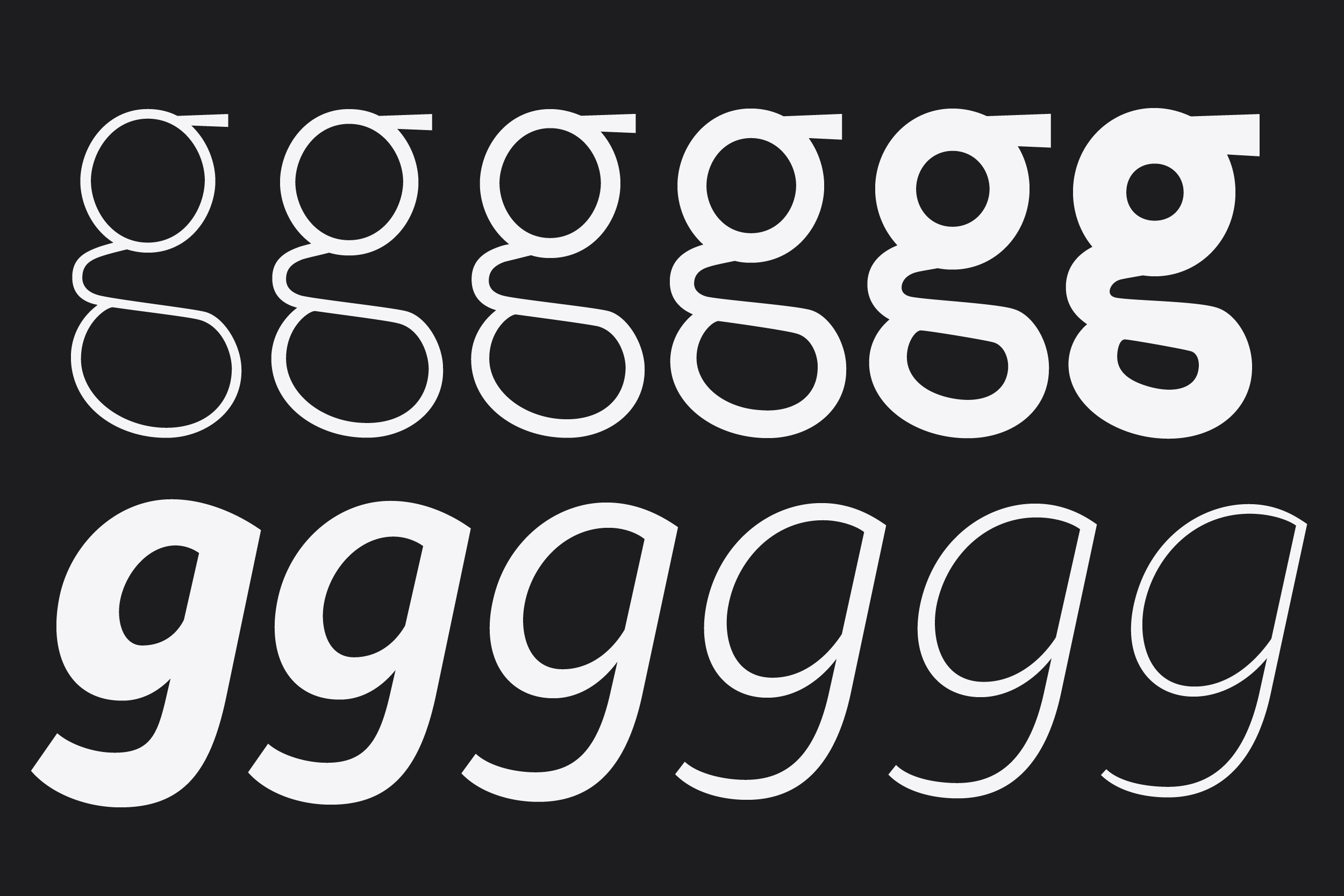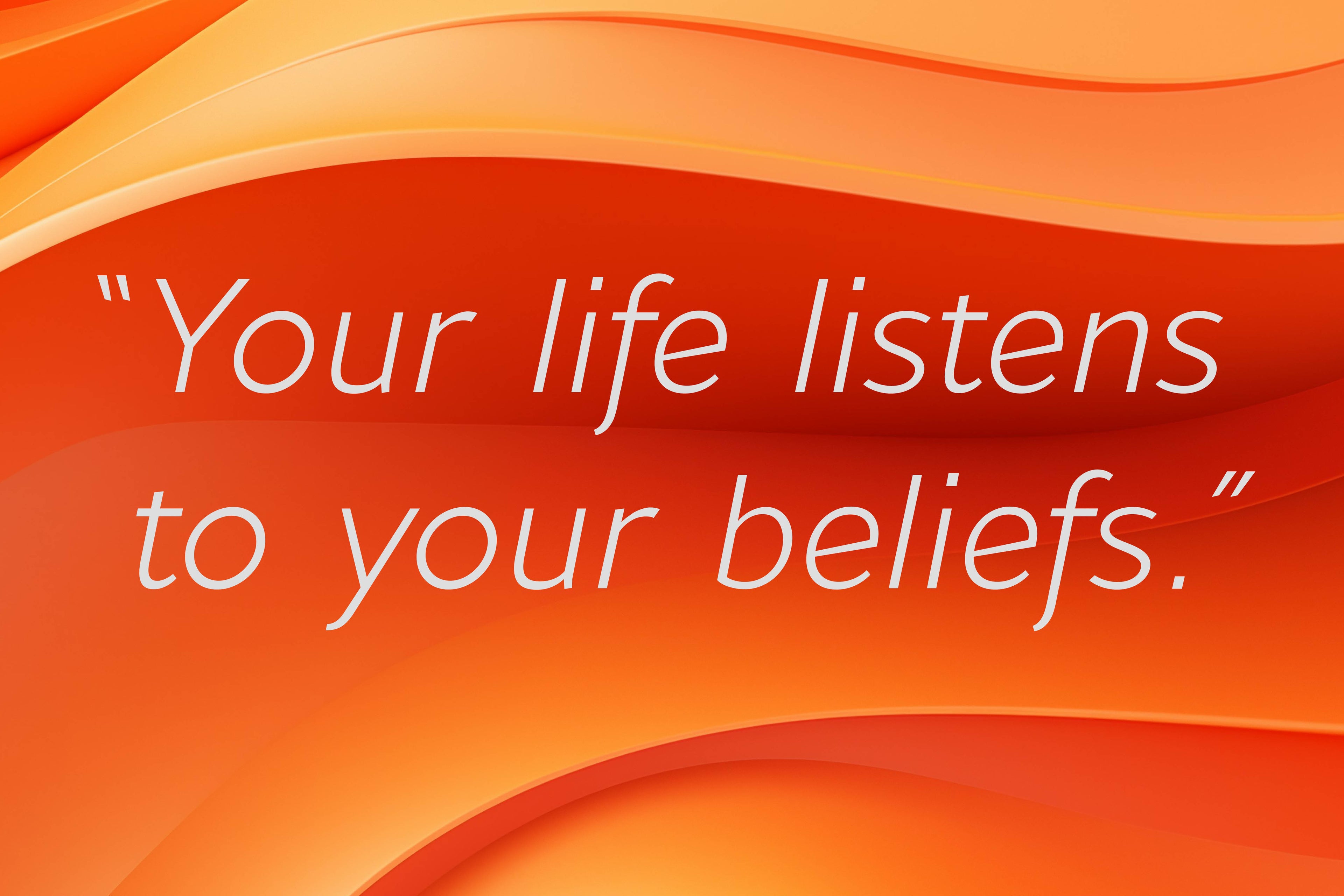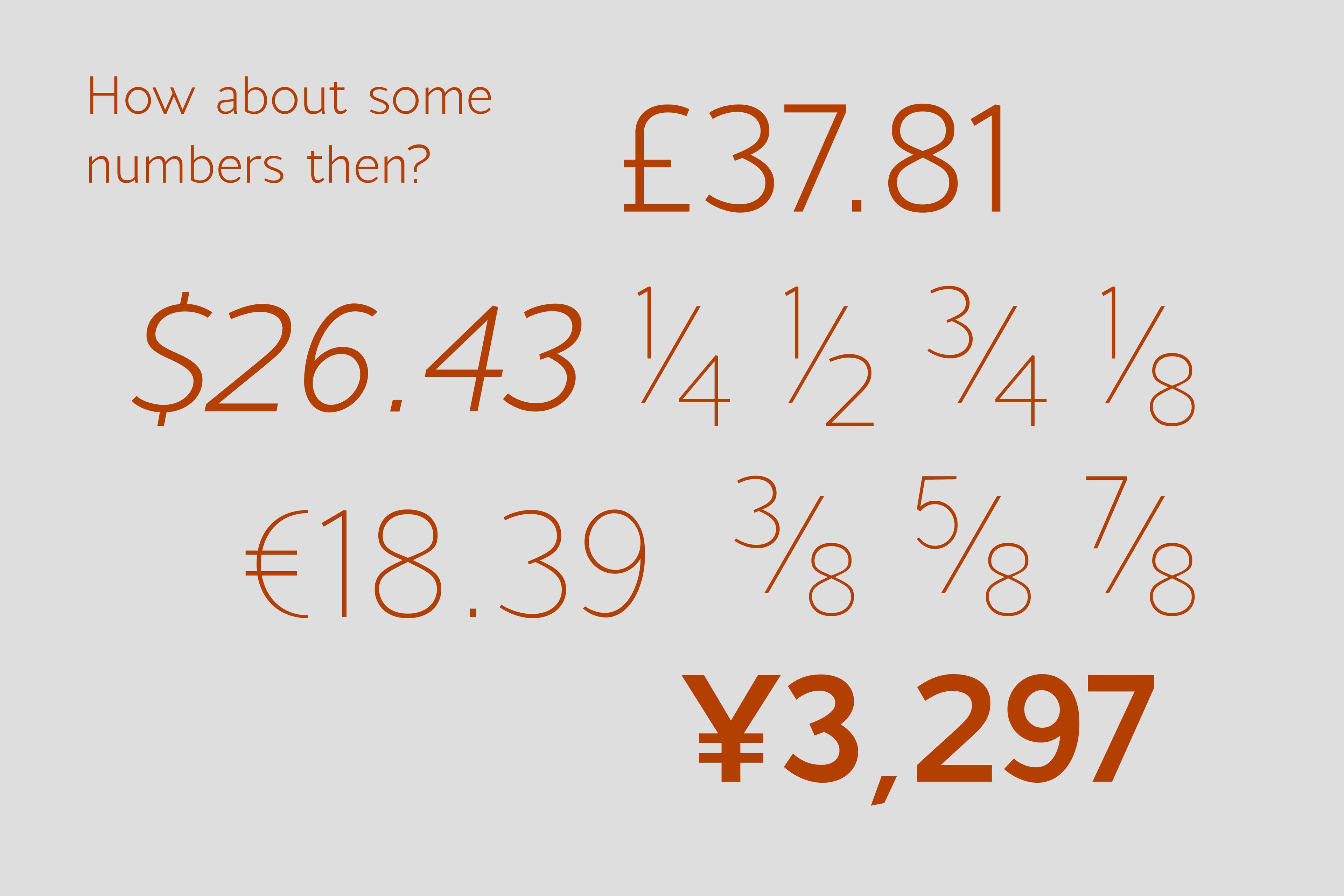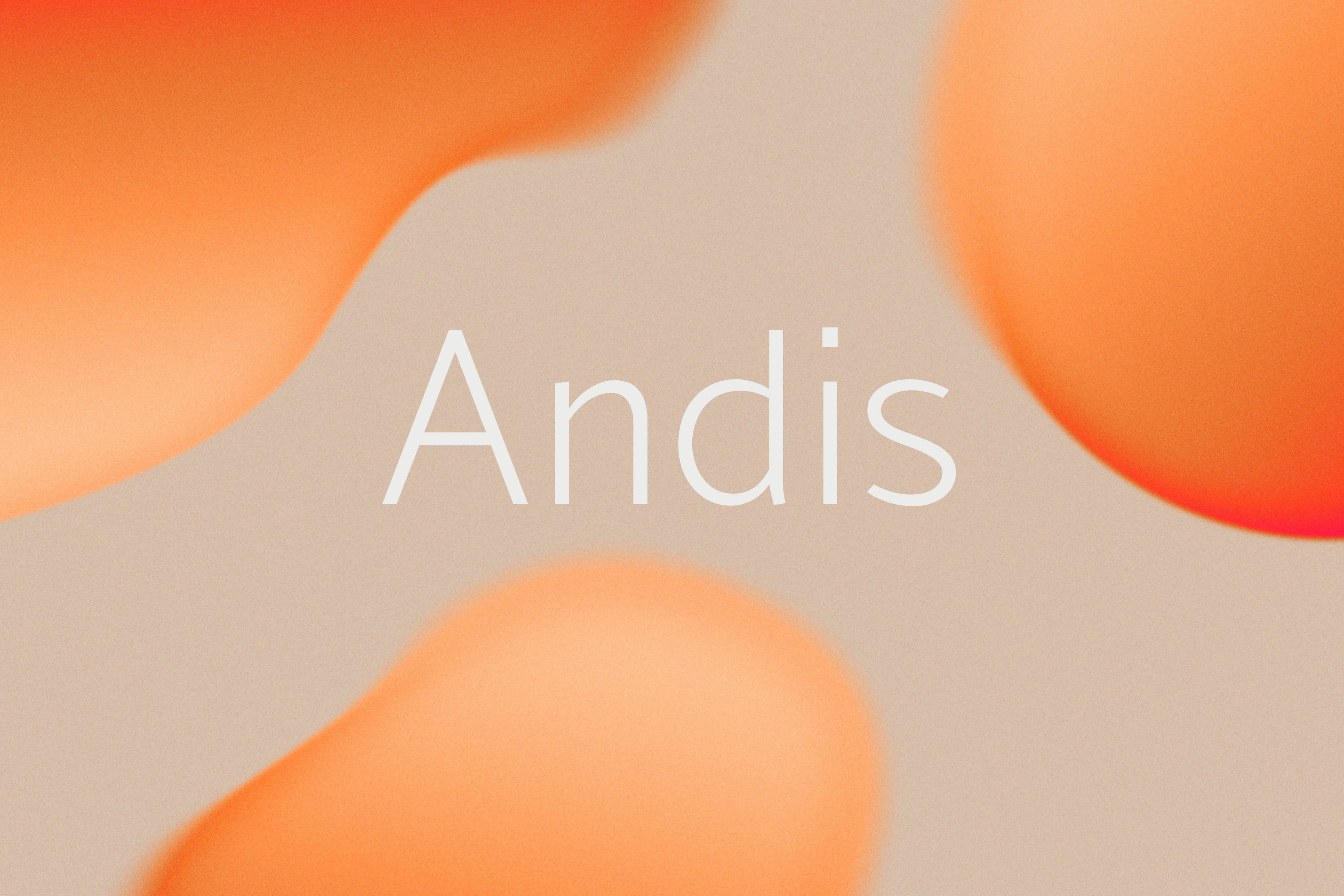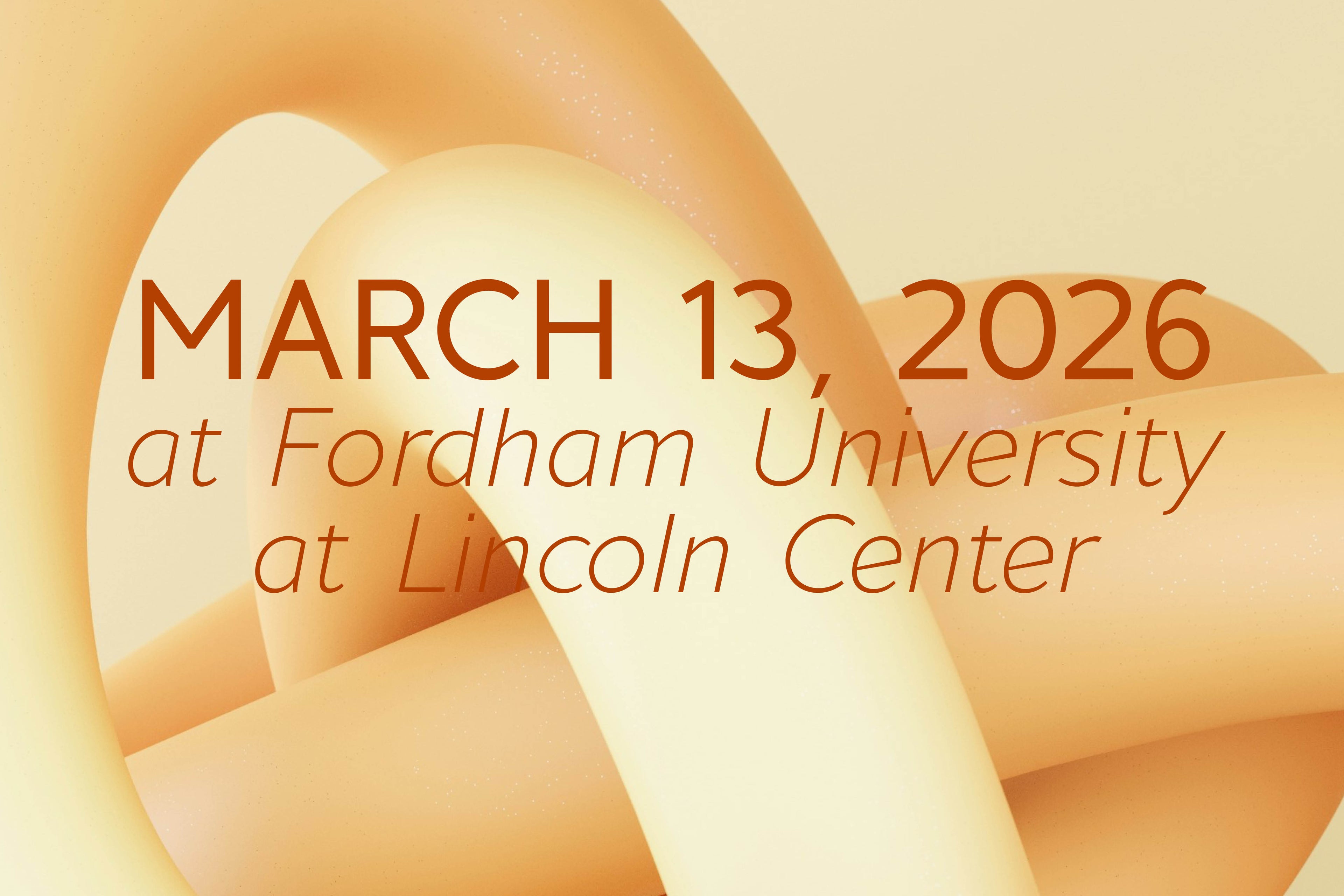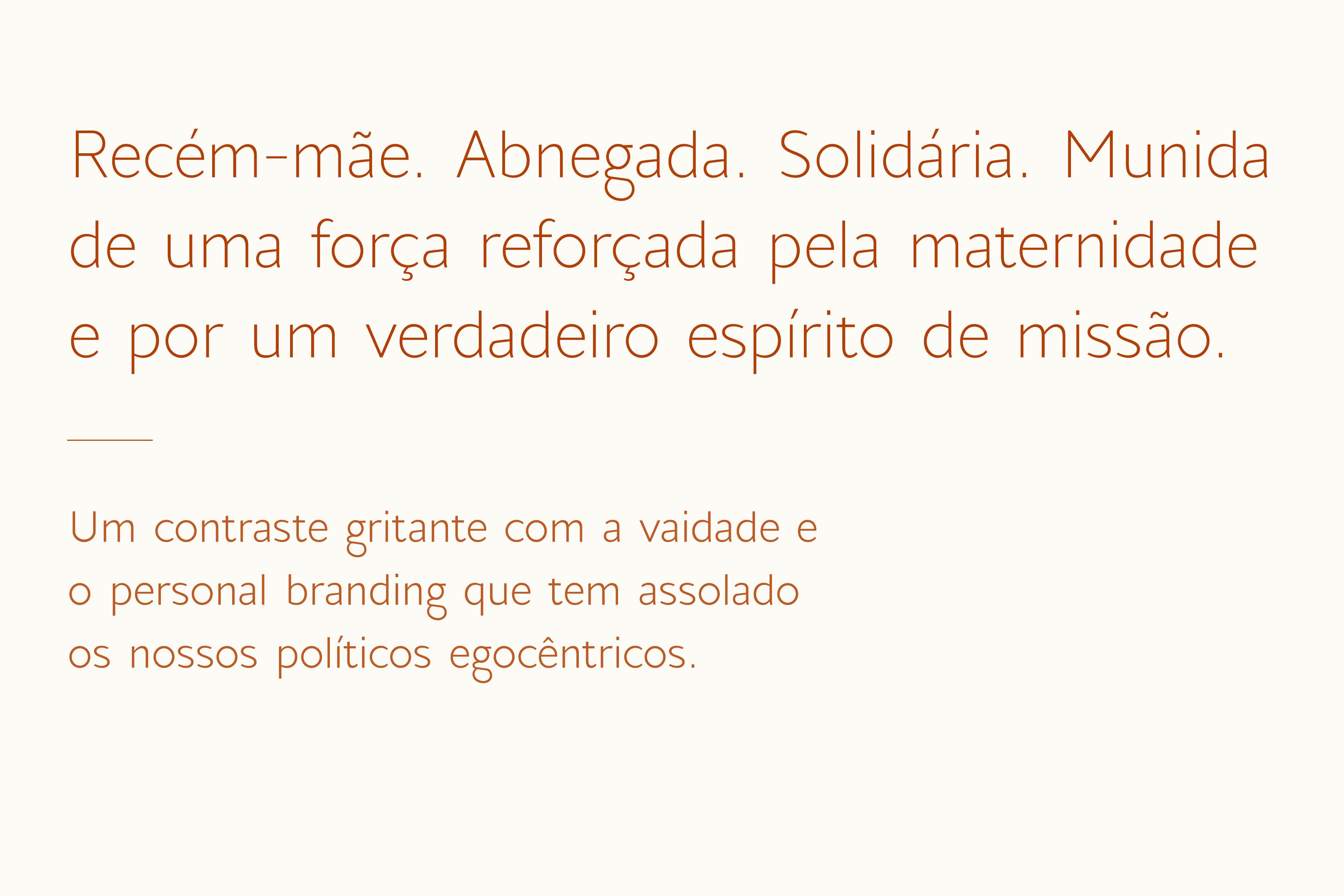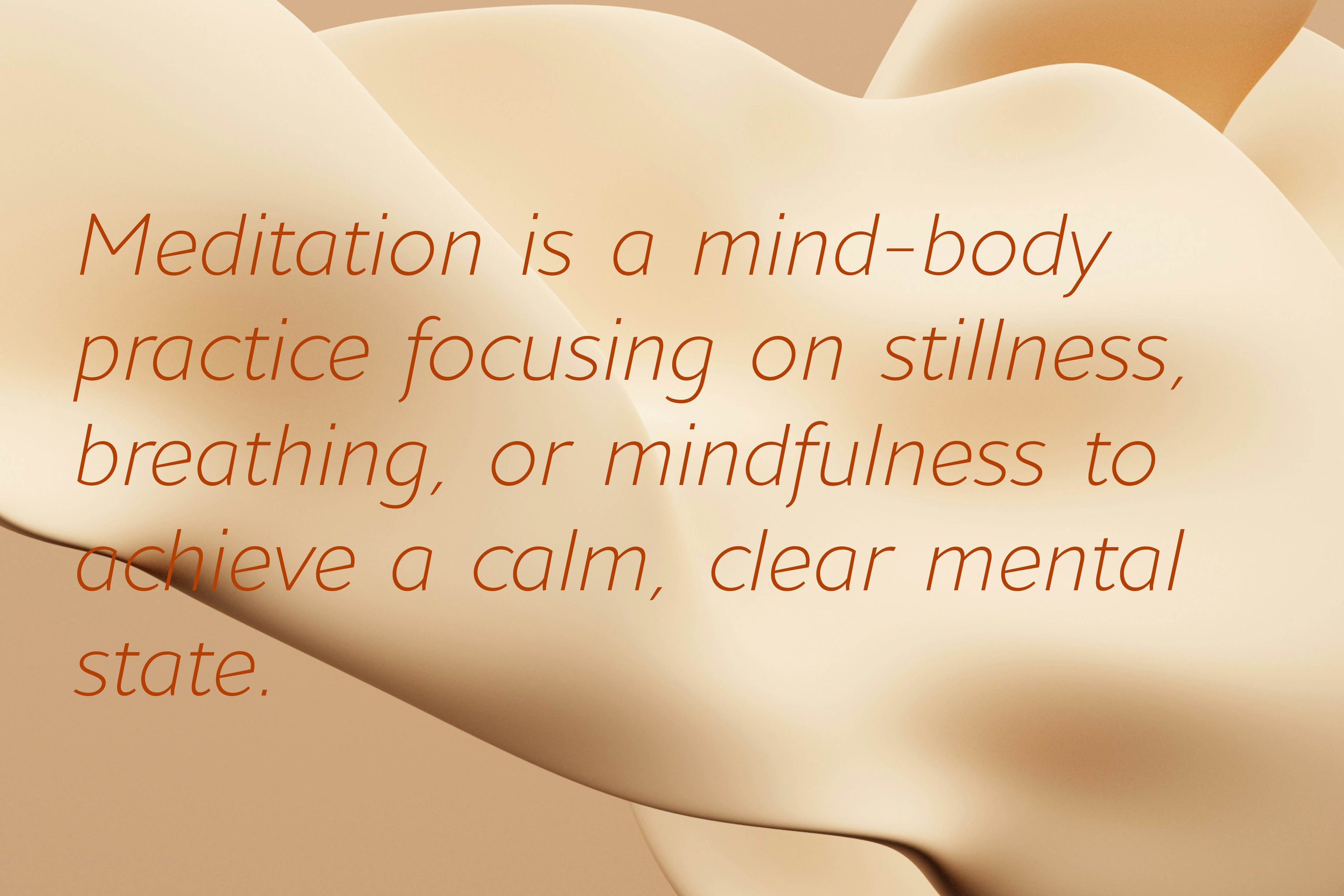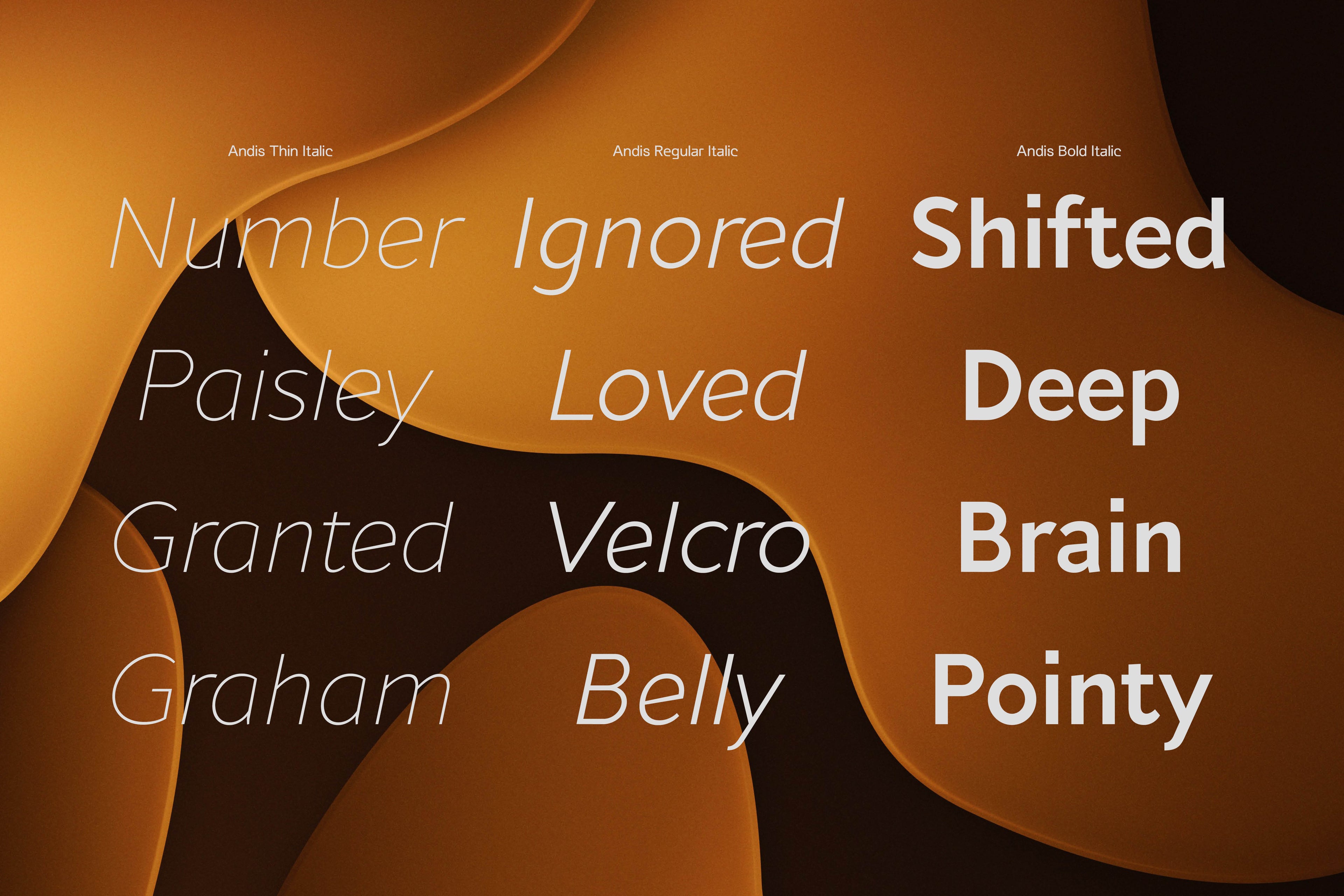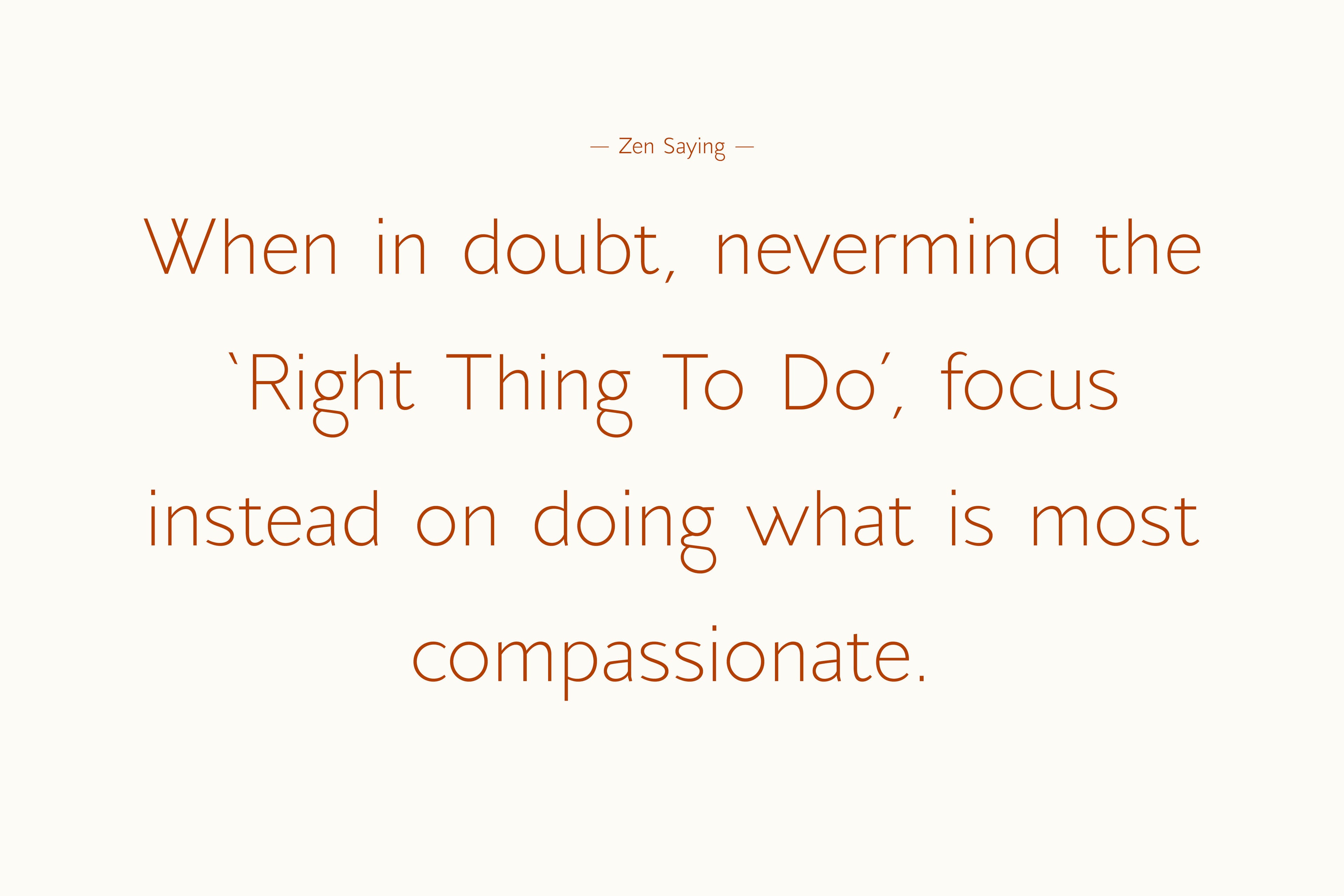
Andis’ rough cut makes it an interesting display typeface, but thanks to its generous x-height and firm serifs, Andis works equally well in text sizes. The typeface’s idiosyncratic italic builds a strong contrast with the roman. Andis is both functional and expressive; using it lends a humanistic touch to editorial or advertising work.